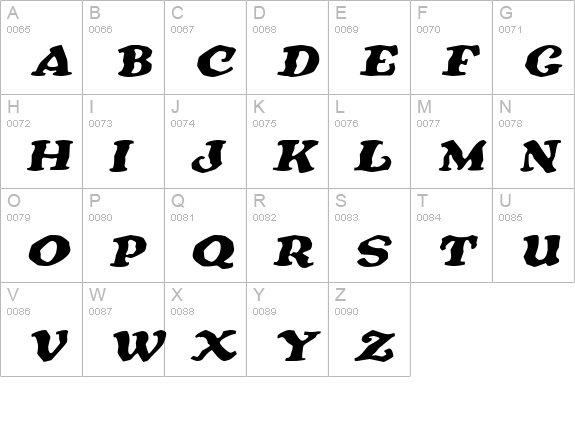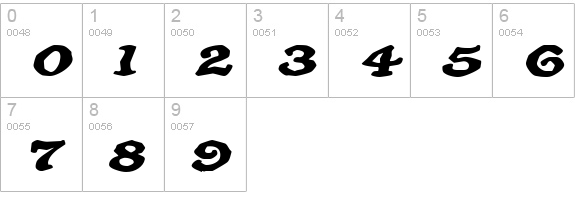
OatmealExtended Italic is a distinctive, italic variant in the OatmealExtended typeface family \xE2\x80\x94 well suited to design and typography projects.
OatmealExtended Italic font is a versatile and elegant typeface that adds a touch of sophistication to any project. Its sleek and modern design makes it perfect for a wide range of uses, from branding to editorial design. The italic style of OatmealExtended adds a dynamic and stylish flair to your text, making it stand out in a subtle and refined way. What makes OatmealExtended Italic font even more appealing is that it is completely free to download at FontsMarket.com. This means you can easily access this sleek and stylish typeface for all your creative needs without any cost. Whether you're designing a website, creating marketing materials, or working on a personal project, OatmealExtended Italic font is a fantastic choice that won't break the bank. Download it today and elevate your designs with this sophisticated and modern typeface.